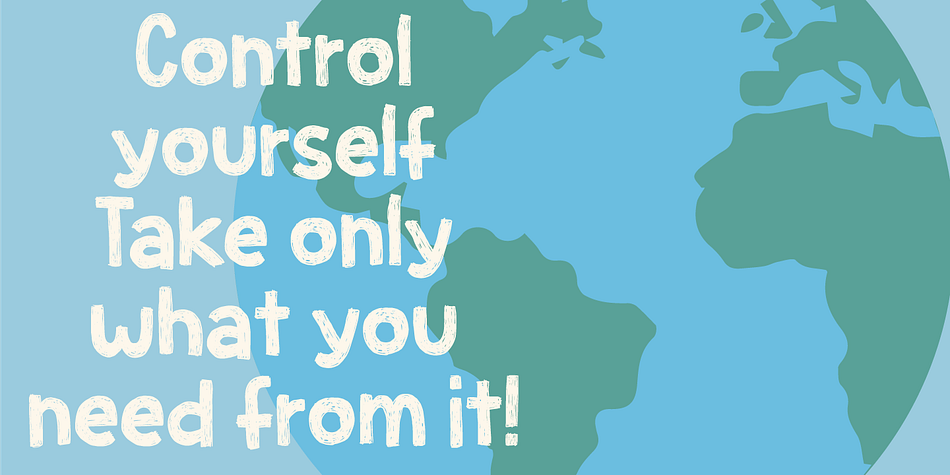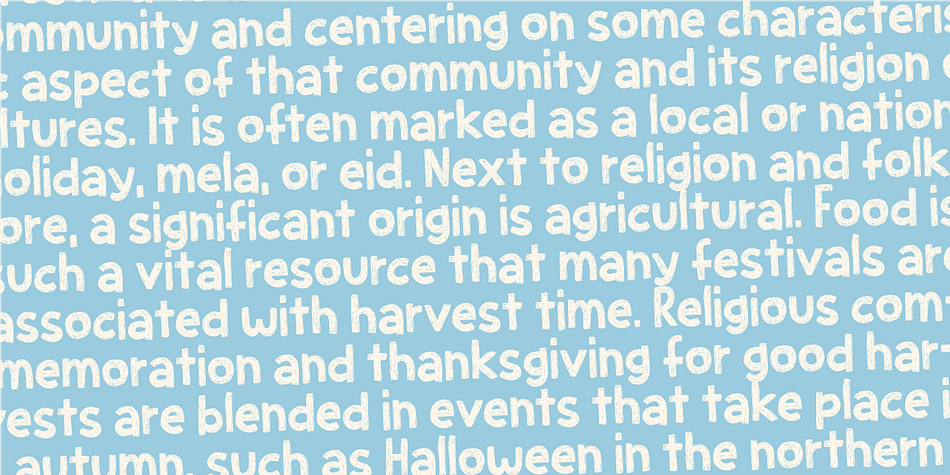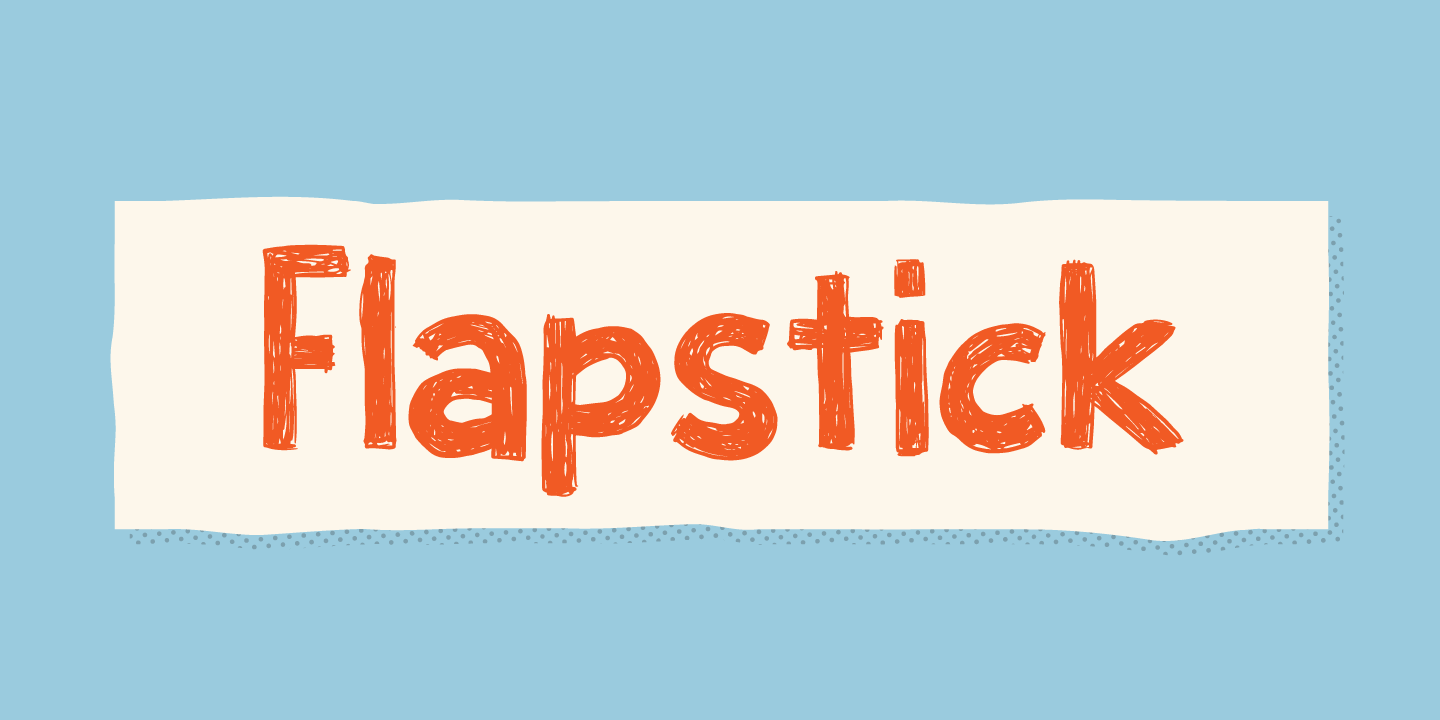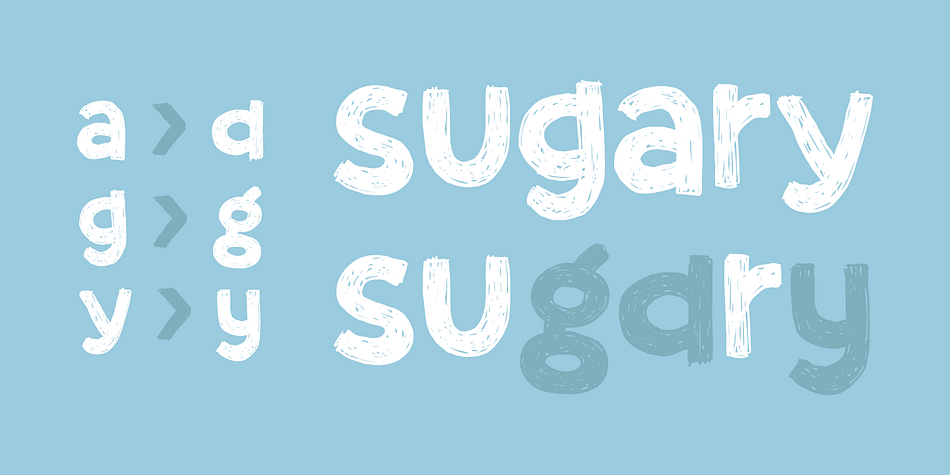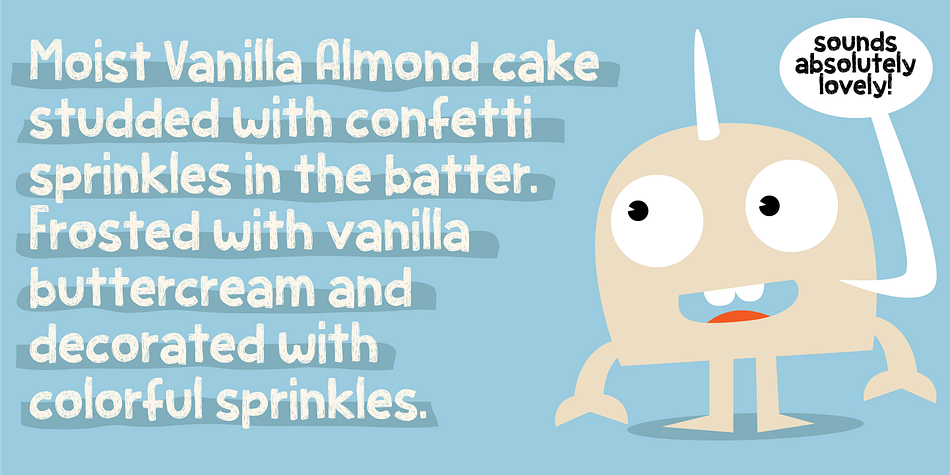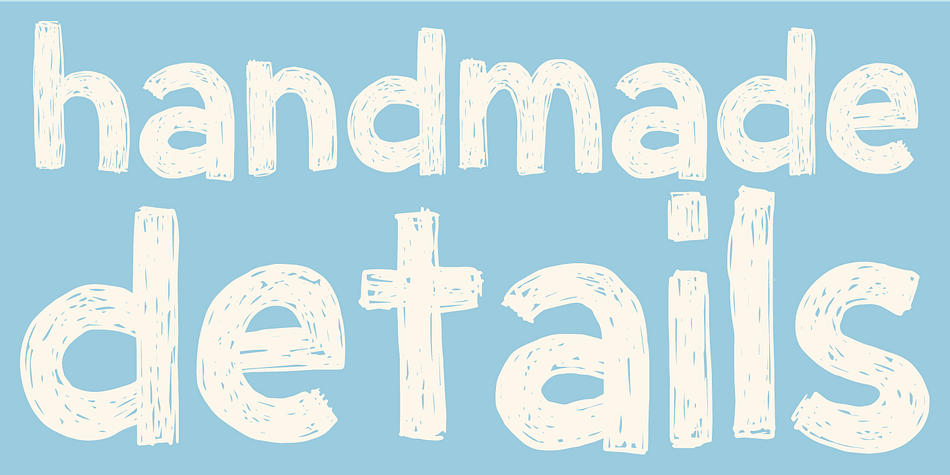
Designed by Jakob Fischer, Flapstick is a hand display, hand drawn and sans serif font family. This typeface has two styles and was published by Pizzadude.dk.
Flapstick is a straight forward and fun sans-serif font. It’s 100% handmade and is ready for your “get well soon” cards, children’s books, posters of all kinds and anything that needs an authentic handmade look!
Multilingual support and alternate versions of a, g and y!